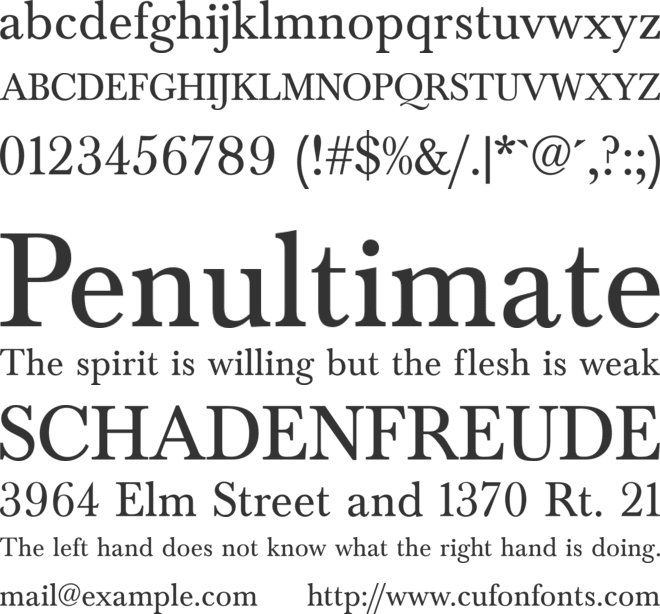
Baskervald ADF Std Font Family
Like Baskerville, is the Baskervald
Readable and very elegant. This is an excellent
text font that can be used for
publications or documents for the web.
Thanks to its forms clear, precise and
high contrast, it is also
treated and refined to advertisements or to
stylish presentations.